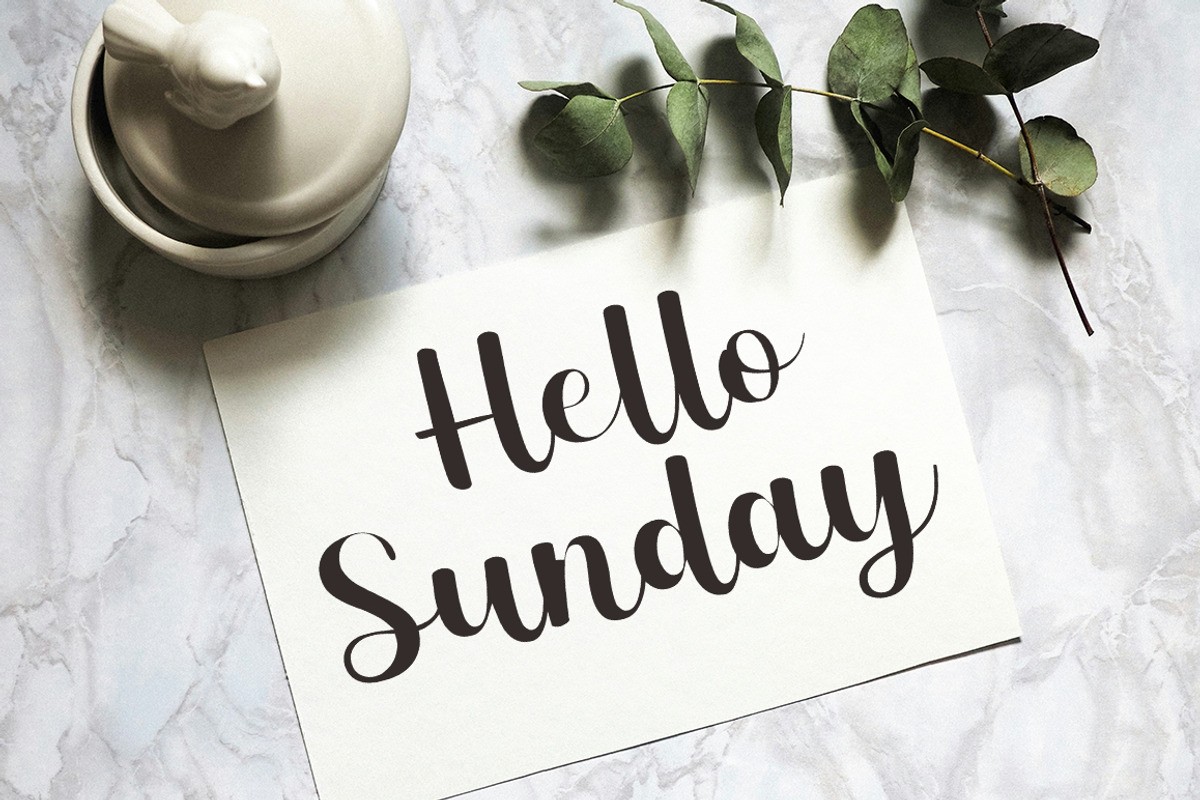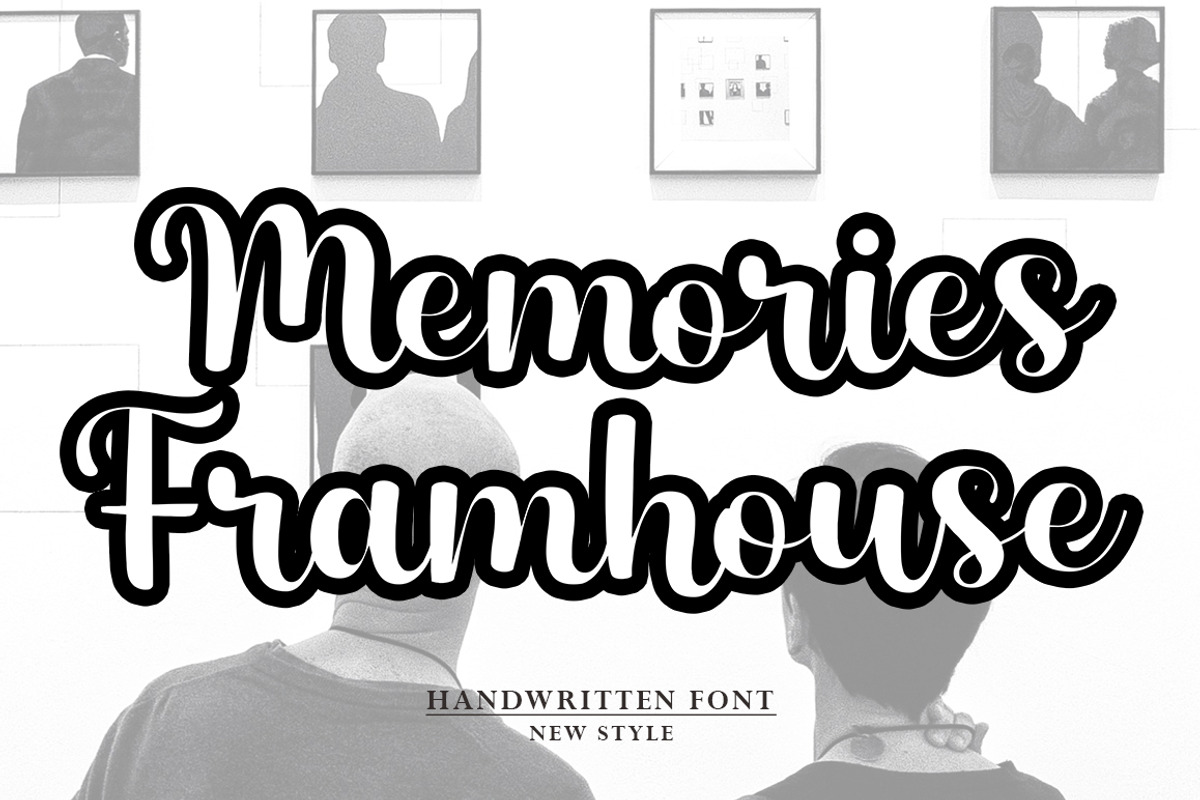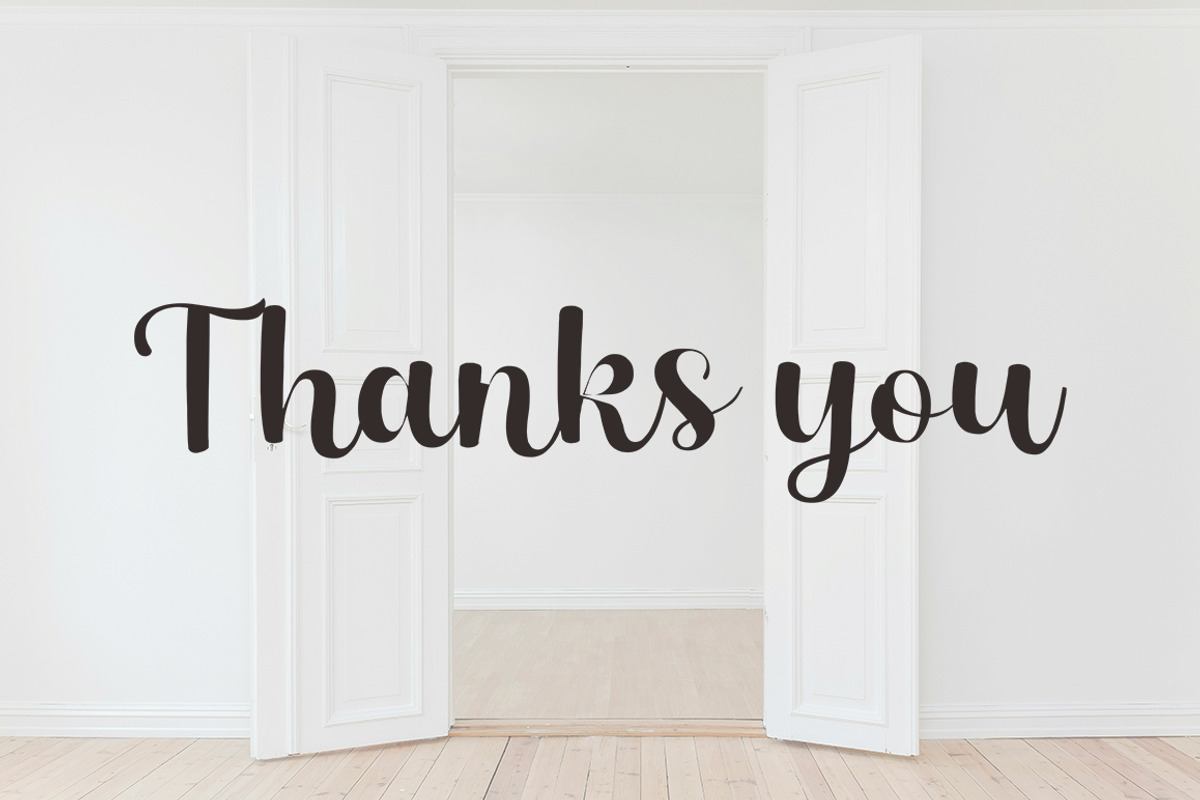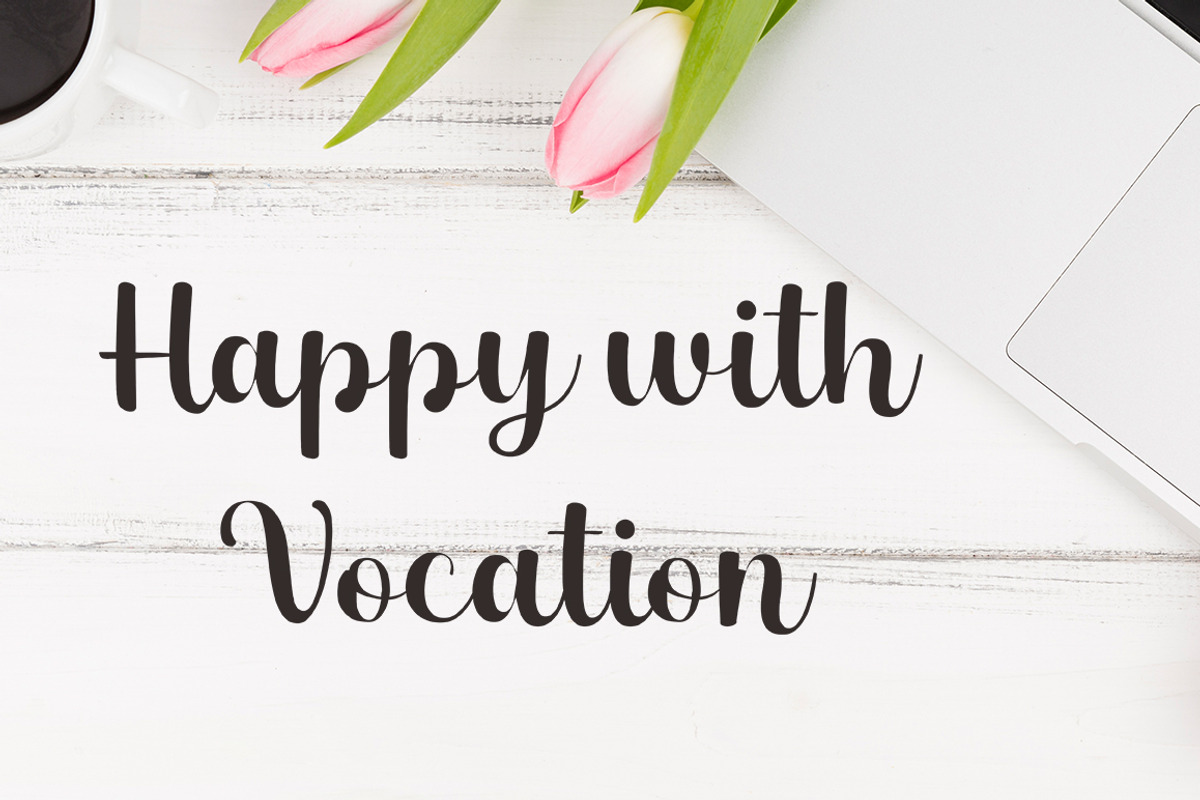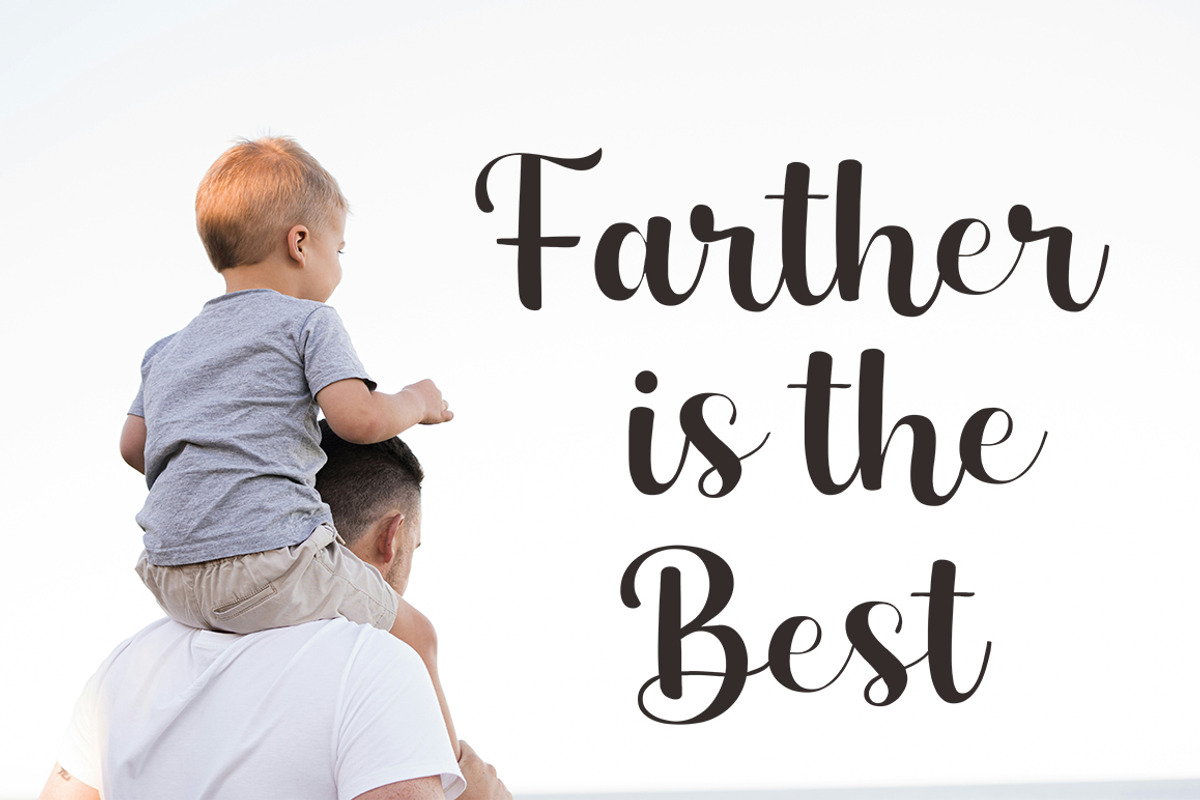
Memories Framhouse
Introducing of our new product the name Memories Framhouse | Athletics Font. Memories Framhouse Font includes uppercase and lowercase letters, numerals, a large range of punctuation, alternate characters, stylishtic set, extrude font and ligatures.